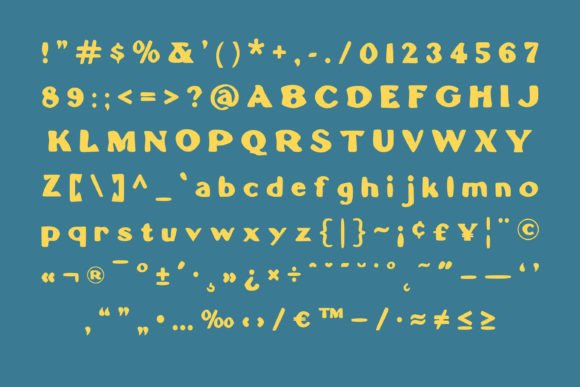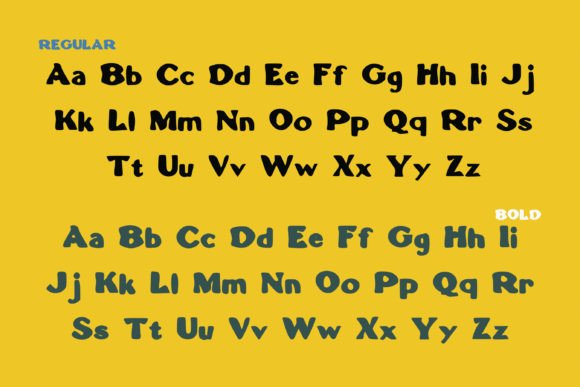
Discovering the Perfect Font for Whimsical Designs
Do you remember that moment when you stumbled upon the perfect font, and suddenly your design project came to life? For designers, this feeling is like finding a treasure trove of inspiration. It’s that spark that sets the creative juices flowing and makes the hours of work worth it.
One such treasure is the Boston Font, a cool and fresh sans serif display font that exudes a slightly quirky and playful vibe. Designed for making a statement, this font is perfect for a wide range of whimsical designs, from advertisements to greeting cards and beyond.
Whether you’re a seasoned designer or just starting out, the Boston Font is a valuable addition to your toolkit. Its unique character and versatility make it an ideal choice for adding a touch of personality to your designs, setting you apart from the crowd and making your work truly unforgettable.
Boston Font Key Features
- Font Family: Boston is a sans-serif font family designed by Font Bureau.
- Unique Characteristics: Boston font is known for its clean and modern design, with a distinctive x-height and a range of weights from Light to Black.
Boston Font Review
As a designer, I was initially excited to work with the Boston font. Here’s my honest take on its strengths and weaknesses:
- Unique Character: The Boston font has a distinct, friendly feel that’s perfect for creating a welcoming atmosphere in branding materials.
- Legibility: The font is highly legible, making it ideal for body text where clarity is crucial.
- Support for Multiple Languages: Boston font supports a wide range of languages, making it a versatile choice for global projects.
- Styling Limitations: Boston font can feel a bit generic and lacks the unique flair that other fonts offer.
- Not Suitable for Headlines: Due to its friendly feel, Boston font may not be the best choice for headlines or titles where a bolder font is desired.
- Font Pairing Challenges: Boston font may require more effort to pair with other fonts, as its unique feel can be difficult to match.
Overall, Boston font is a solid choice for body text and branding materials, but it may not be the best fit for projects that require a bold, attention-grabbing font.
The Boston font is a versatile sans-serif font that can be used in a variety of applications, including:
- Business cards and resumes
- Print materials and marketing materials
To get the most out of the Boston font, use it in conjunction with other clean and simple fonts, and experiment with different font sizes and colors to create a visually appealing design.